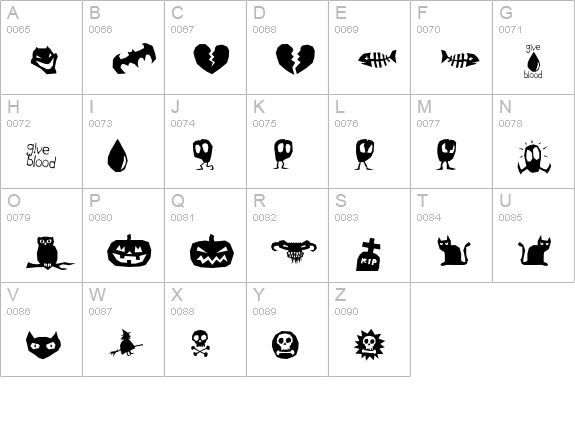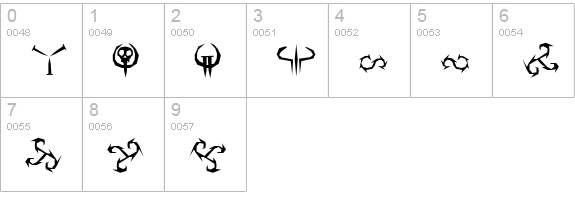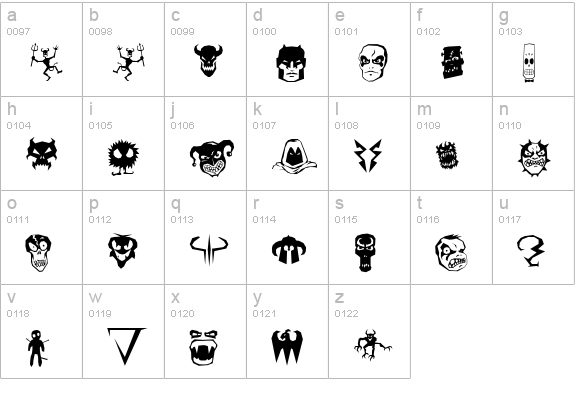
ILL oCtoBer 98 Font Details
Introducing ILL oCtoBer 98, a captivating and versatile font that will add a touch of uniqueness to your designs. This one-of-a-kind typeface combines bold, edgy lines with a quirky and playful twist, making it perfect for a wide range of projects. With its distinctive letterforms and eye-catching details, ILL oCtoBer 98 is sure to grab attention and make a lasting impression. Whether you're designing a logo, poster, invitation, or any other creative endeavor, this font will effortlessly elevate your work to new heights. But what sets ILL oCtoBer 98 apart from the rest is its incredible affordability. This font is freely available to download at FontsMarket.com, allowing you to add a touch of professional elegance to your projects without breaking the bank. Gone are the days of compromising on quality due to budget constraints – ILL oCtoBer 98 offers you the best of both worlds: exceptional design and a price tag that won't empty your wallet. So why wait? Unlock your creativity and explore the endless possibilities with ILL oCtoBer 98. Download it for free today at FontsMarket.com and see how this font can transform your designs from ordinary to extraordinary. Don't miss out on this incredible opportunity to enhance your work with a font that is both visually stunning and budget-friendly. Get ILL oCtoBer 98 now and let your imagination run wild!